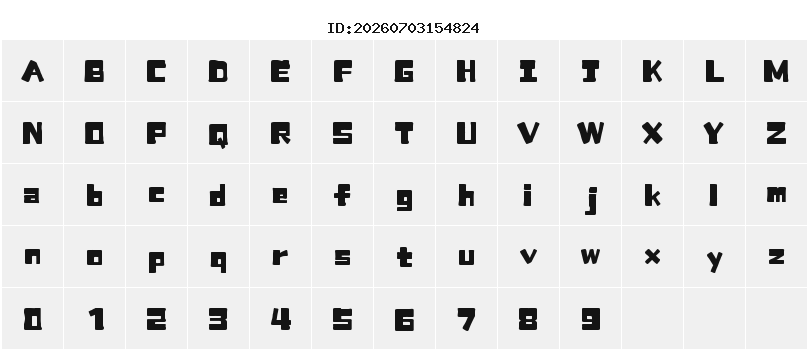
361-上首憨豆体 Preview
• Font Name: 361-上首憨豆体
• Font ID: 361-SSHanDou Ti:Version 4.00
• Full Font Name: 361-上首憨豆体
• Version: Version 4.00 November 4, 2024
• PostScript Name: 361-SSHanDouTi
• Character Count: 7567
• Manufacturer: 上首造字
About 361-上首憨豆体.ttf
361-上首憨豆体.ttf is a modern, elegant sans-serif font designed for ultimate readability and visual harmony. Perfect for branding, headlines, web design, and print materials.